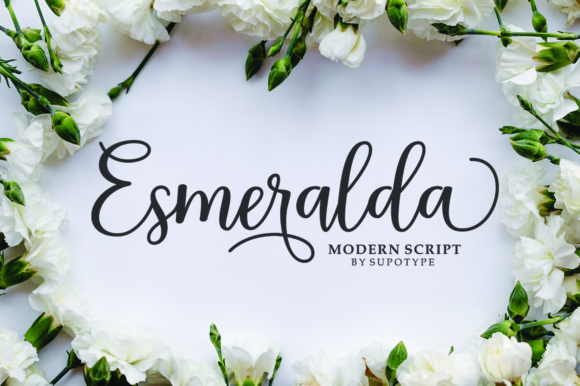
Journey into the Whimsical Realm of Esmeralda Script Font: Where Elegancy Meets Charm
Prepare to be captivated by the enchanting world of Esmeralda Script Font, a creation of Supotype that has won the hearts of designers and typographers worldwide. This remarkable font is a dance of beauty and functionality, poised to elevate your projects to new heights.
Esmeralda's allure lies in its graceful lines and delicate curves, giving life to letters that exude elegance and charm. Its playful baseline dances across the page, reminiscent of a ballerina's graceful movements. Whether you're a seasoned designer or simply seeking a touch of beauty in your creative endeavors, Esmeralda is your muse, guiding you toward masterpieces.
Dive into a world of possibilities with Esmeralda, a font that adapts seamlessly to a wide range of applications. From branding projects that demand a touch of sophistication to wedding invitations that crave a romantic flair, Esmeralda is your trusted companion, transforming ordinary designs into extraordinary works of art.
Let your imagination soar as you craft breathtaking logos that radiate elegance and distinction. Design greeting cards that carry heartfelt messages with a sprinkle of charm. Create wedding stationery that captures the magic of your special day, leaving a lasting impression on your guests.
With Esmeralda by your side, transform your creative vision into a reality. Its versatility knows no bounds, allowing you to breathe life into quotes, posters, and any design project that calls for a touch of grace.